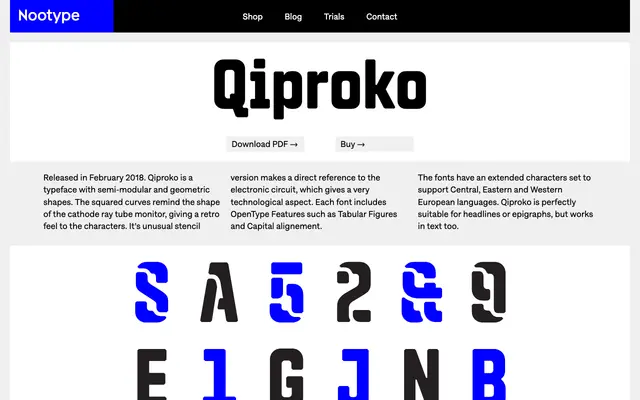
Qiproko
Nootype · 2018
A semi-modular geometric typeface with squared curves evoking CRT monitors, offered across five widths and a stencil variant referencing electronic circuitry.
Released in February 2018, Qiproko pairs semi-modular geometry with rounded-square curves that call back to cathode ray tube screens, giving it a retro-technological character. The family spans five widths from Condensed to Extended, each mirrored by a stencil cut whose interrupted strokes draw from the visual language of printed circuit boards. Coverage extends to Central, Eastern and Western European Latin, and OpenType features include tabular figures and capital alignment.
Semi-modular construction with squared curves and a stencil variant place this firmly in geometric display territory, with retro-technological character rather than conventional text or sans-serif classification.